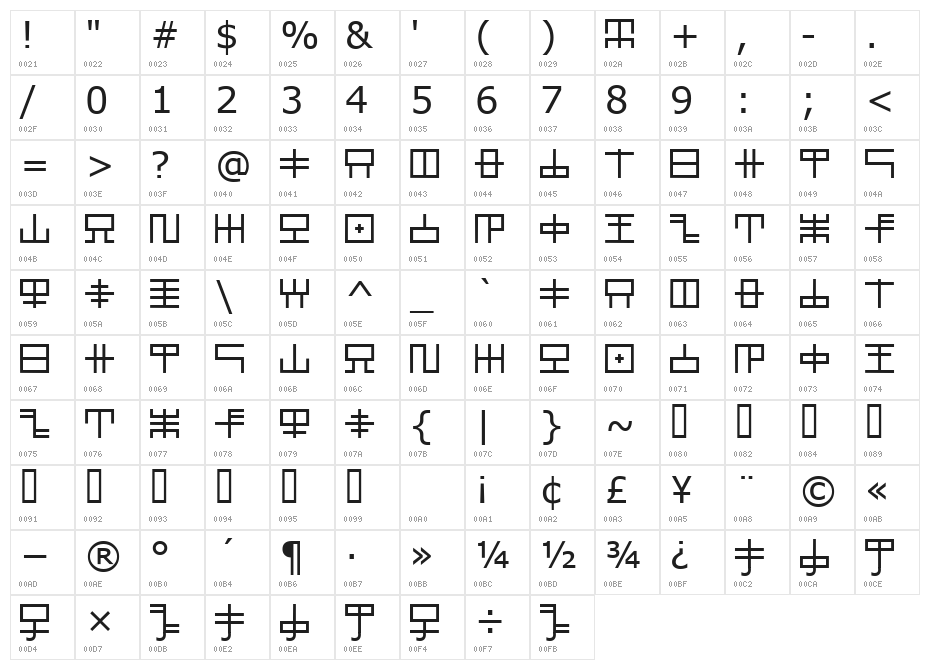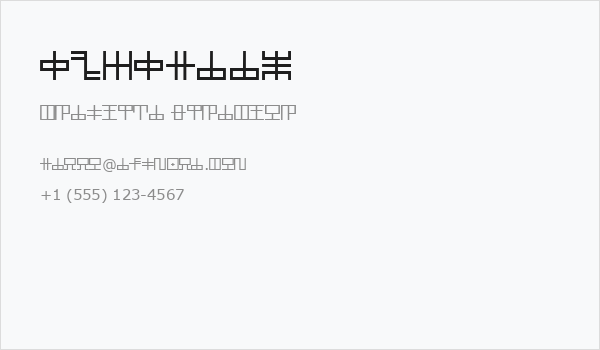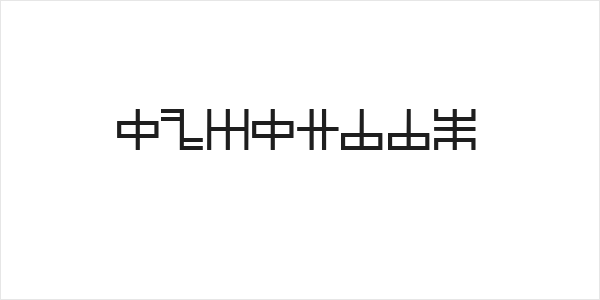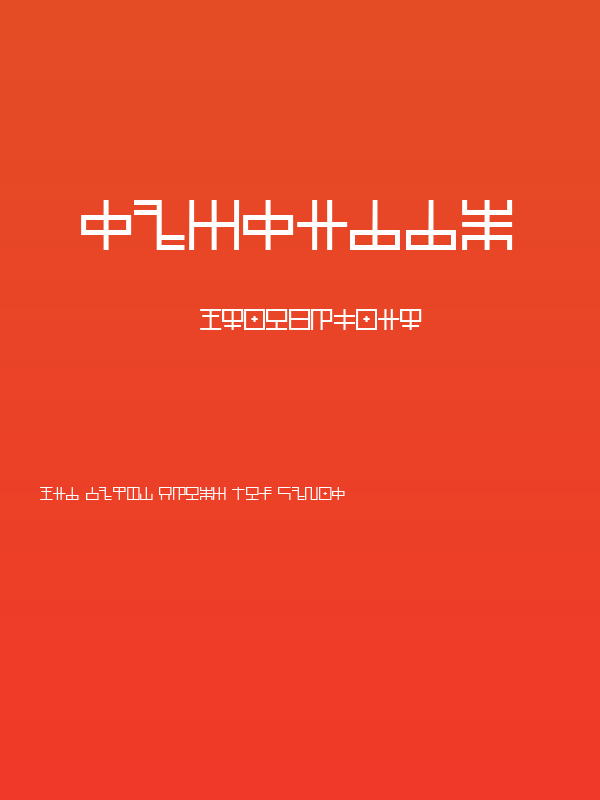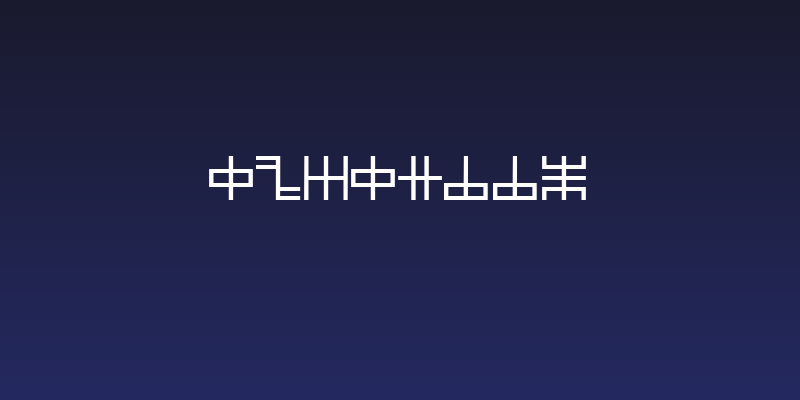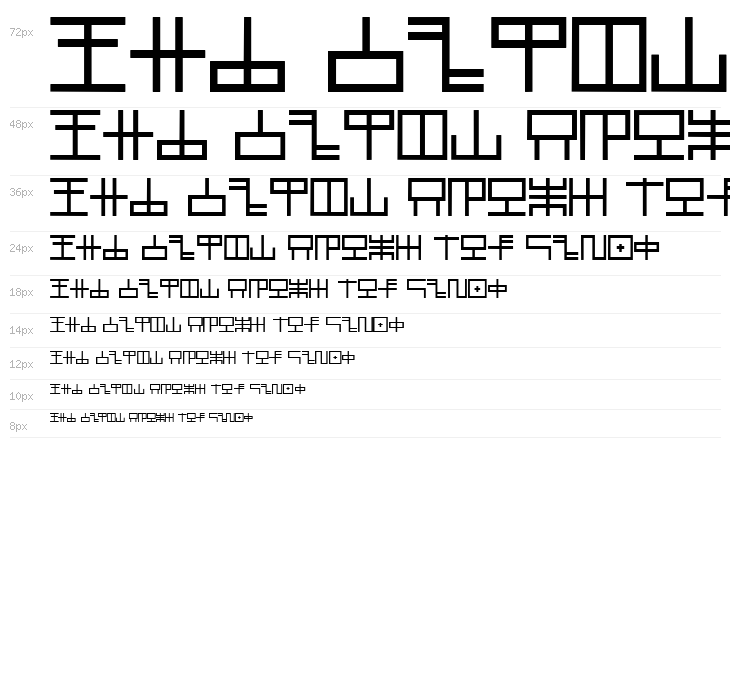
SunsheeW Font
SunsheeW Description
This font features a modern, geometric design with clean, straight lines and a minimalist aesthetic. The characters are constructed with consistent stroke widths, giving it a uniform appearance. The numerals and special characters maintain the same geometric style, ensuring cohesion across all elements. The font's simplicity and clarity make it highly legible, suitable for various digital and print applications. Its modern look is complemented by a slightly futuristic feel, making it ideal for tech-related projects or contemporary branding.
| Use Case | Headlines, Logos, Digital interfaces |
| Proposed Projects | Ideal for tech branding, digital interfaces, modern advertising, and minimalist design projects. |